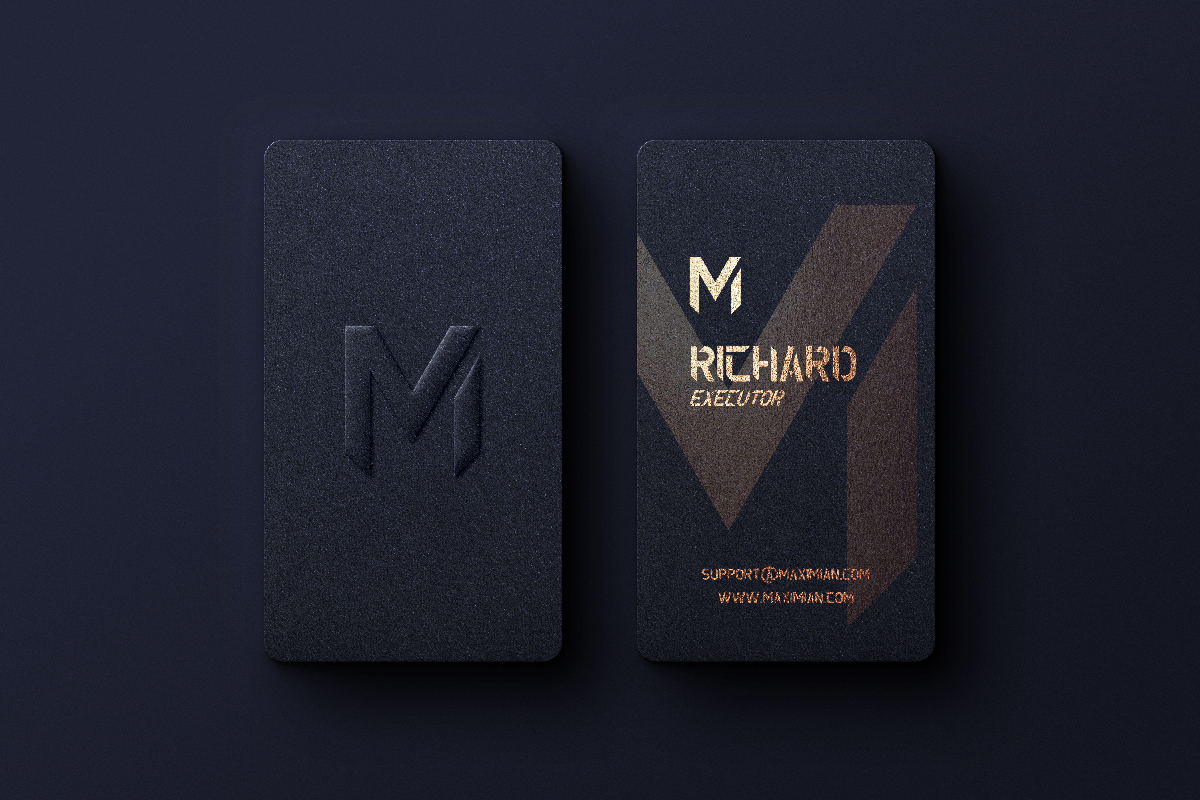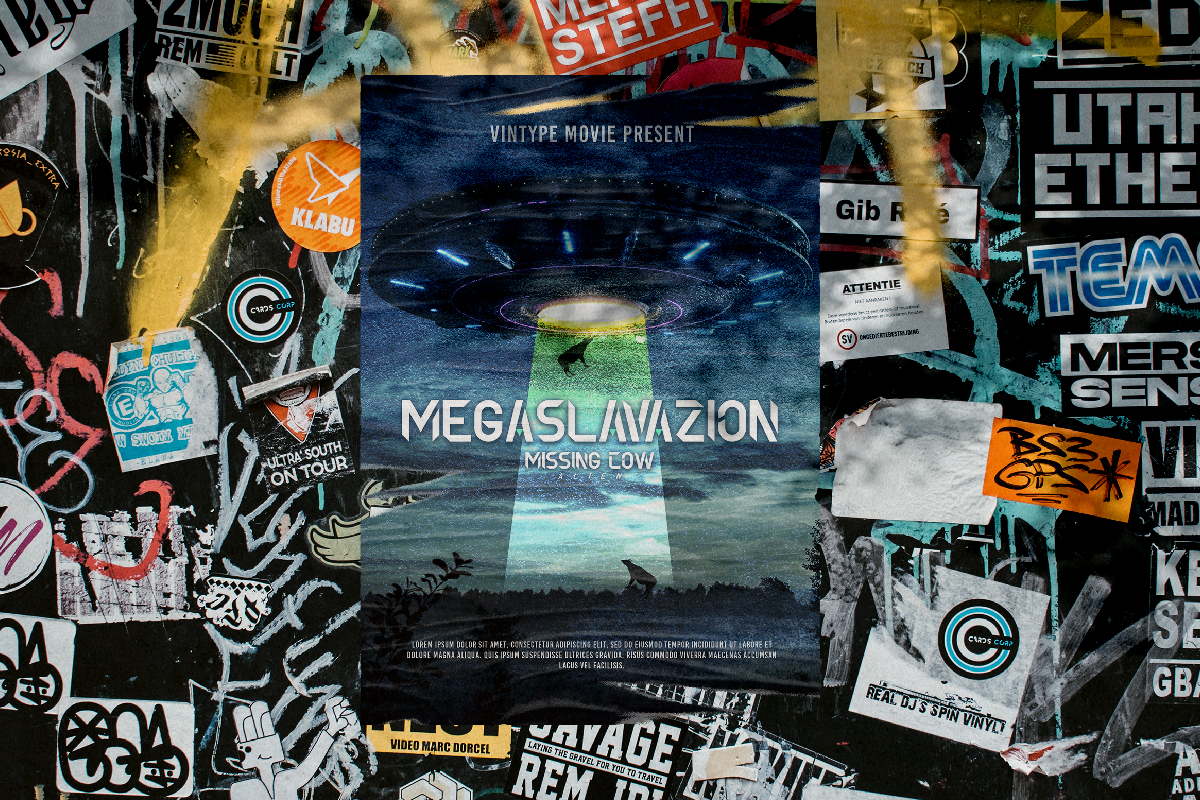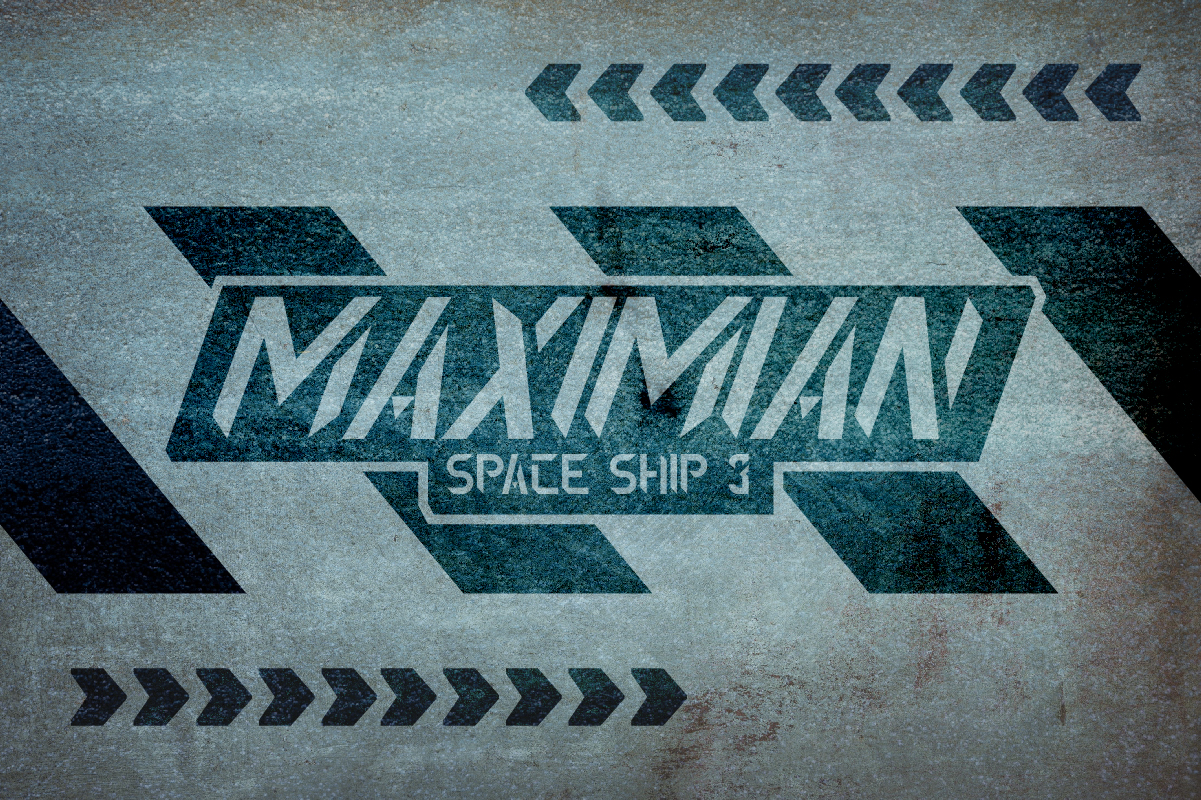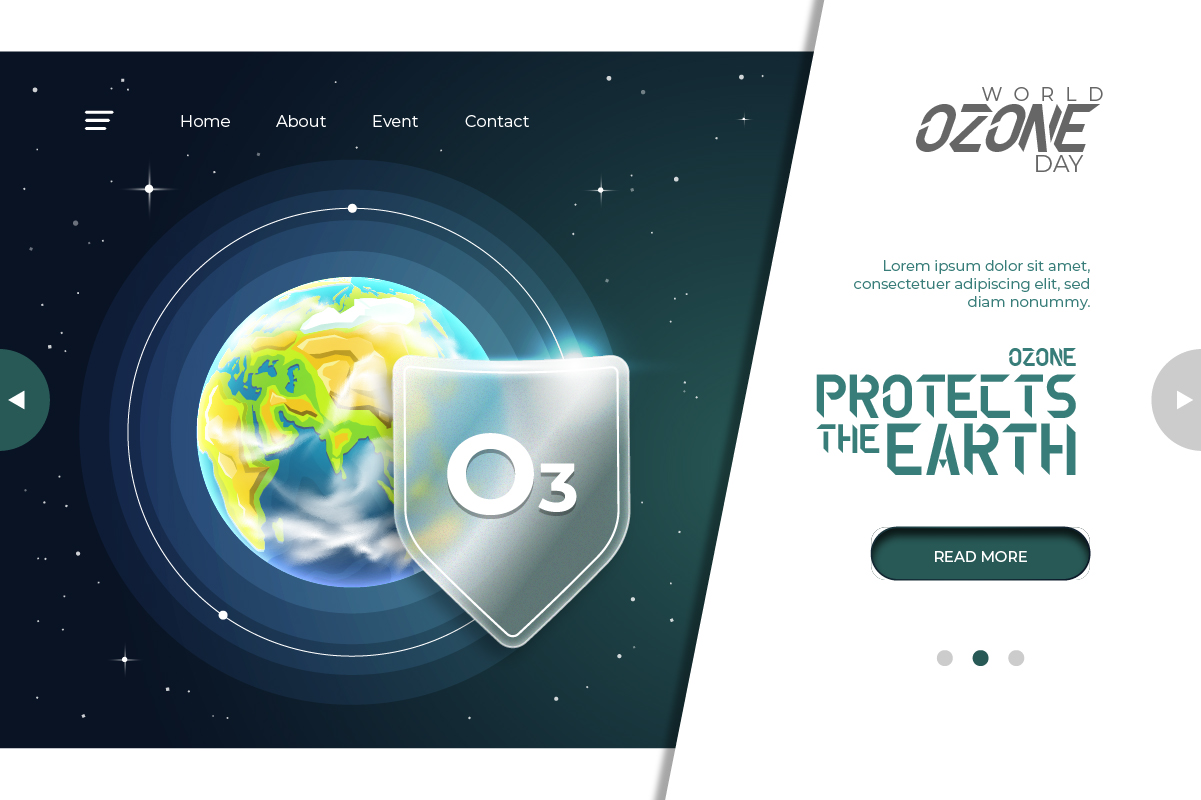
Maximian Font
Maximian Display Font
It’s a modern display sans serif font with sharp and strong edges style. This font has techno, modern and sporty style on every characters set. Maximian Font will be great for many industries : Sports, Movies, Startup, Tech Company, Futuristic company etc.